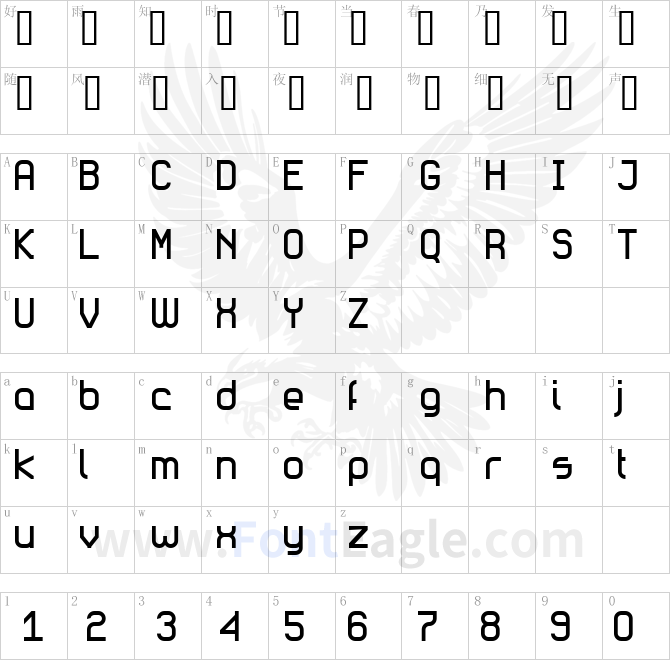
- Font name:Genx Checker Cyr
- Font Subfamily ID:Macromedia Fontographer 4.1 Genx Checker Cyr
- Font Full Name:Genx Checker Cyr
- Font Version:Macromedia Fontographer 4.1 02.12.00
- Postscript:GenxCheckerCyr